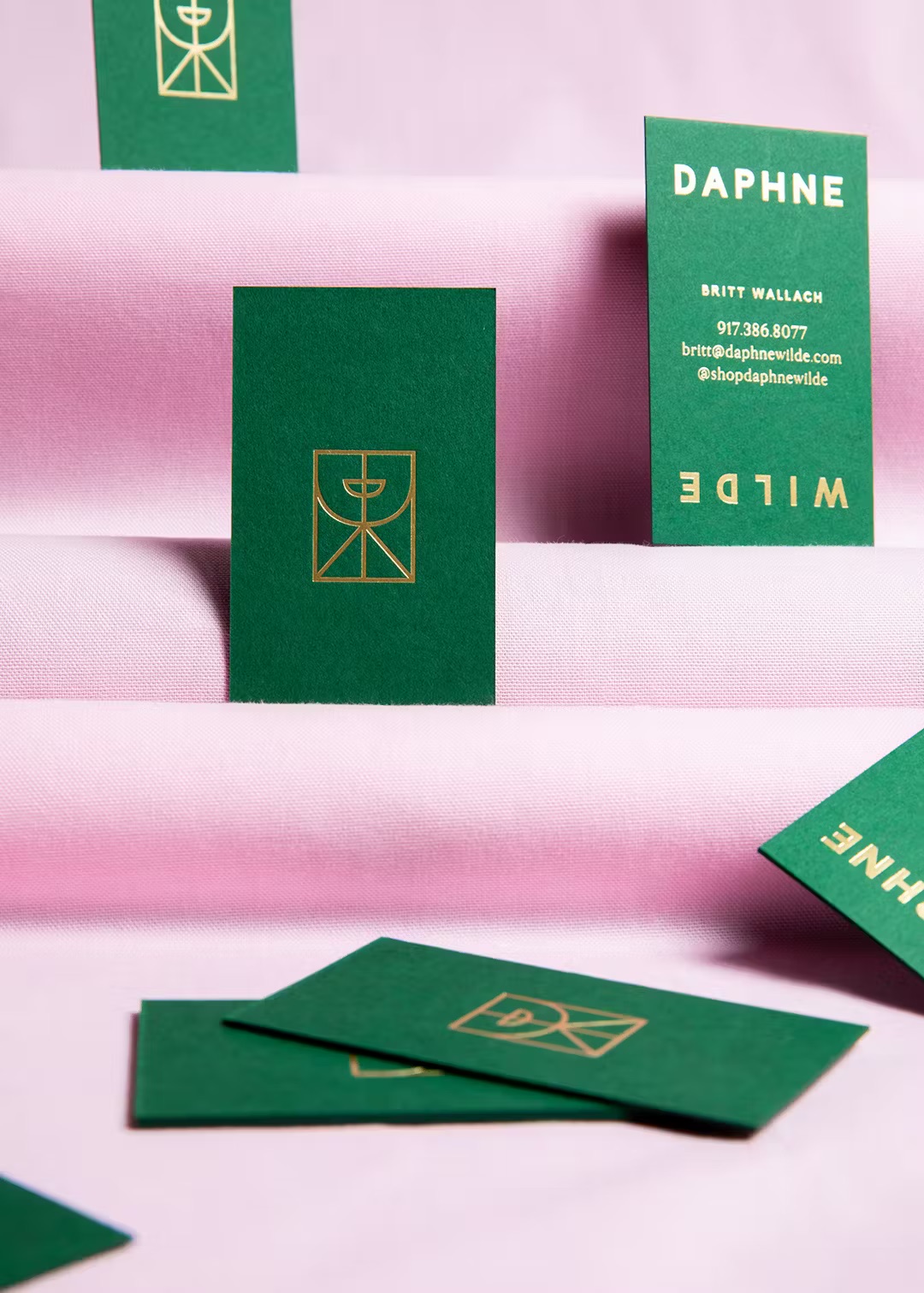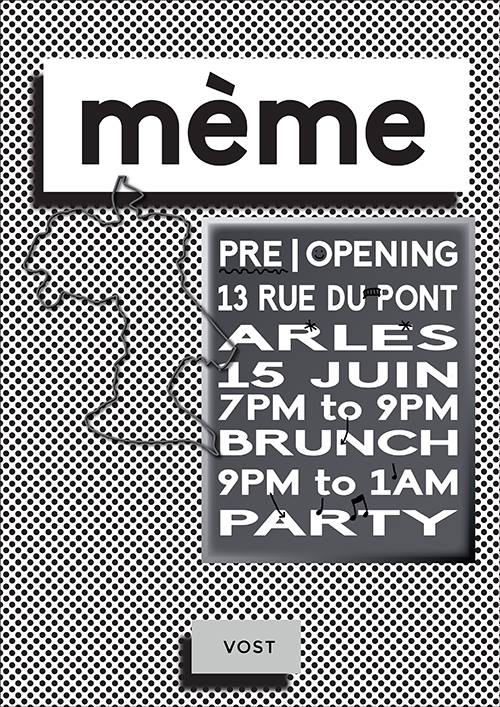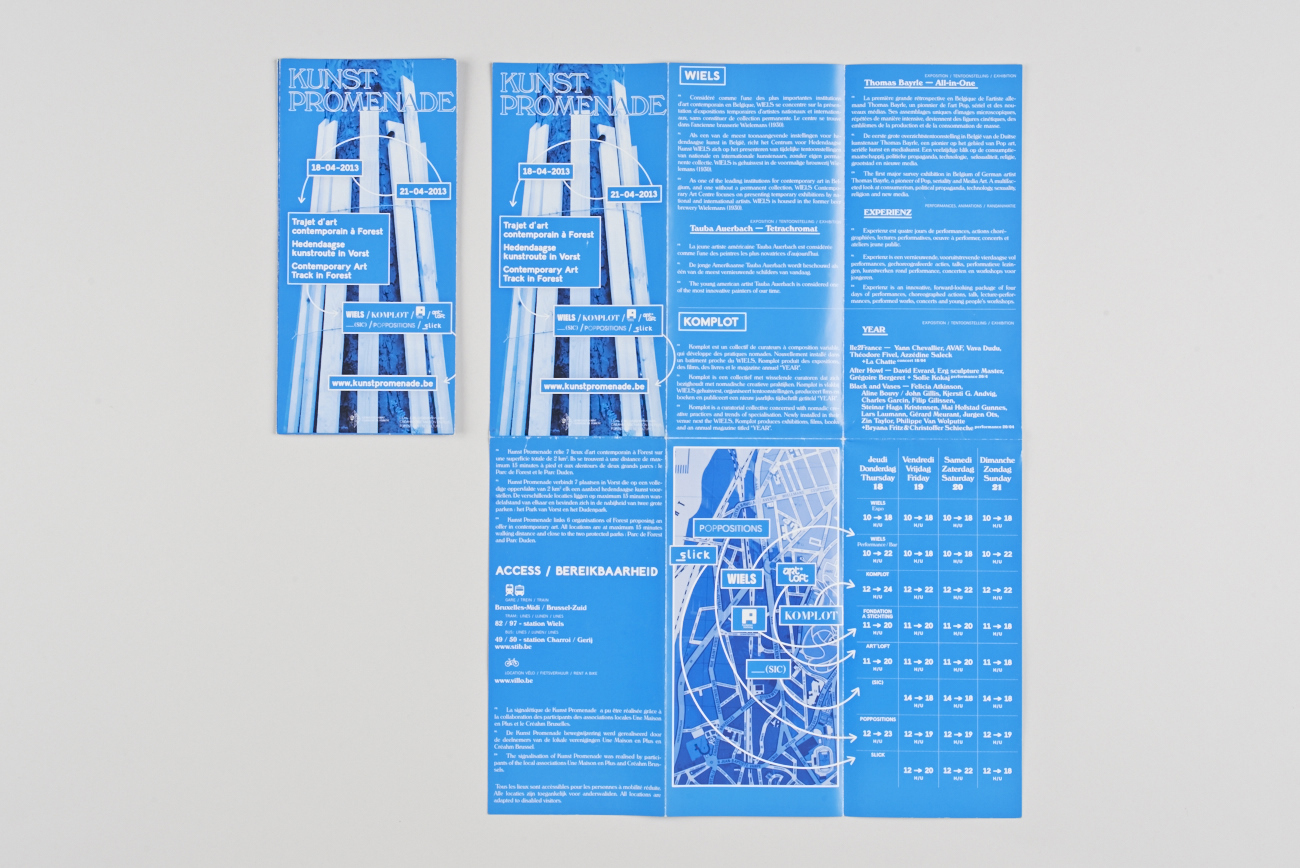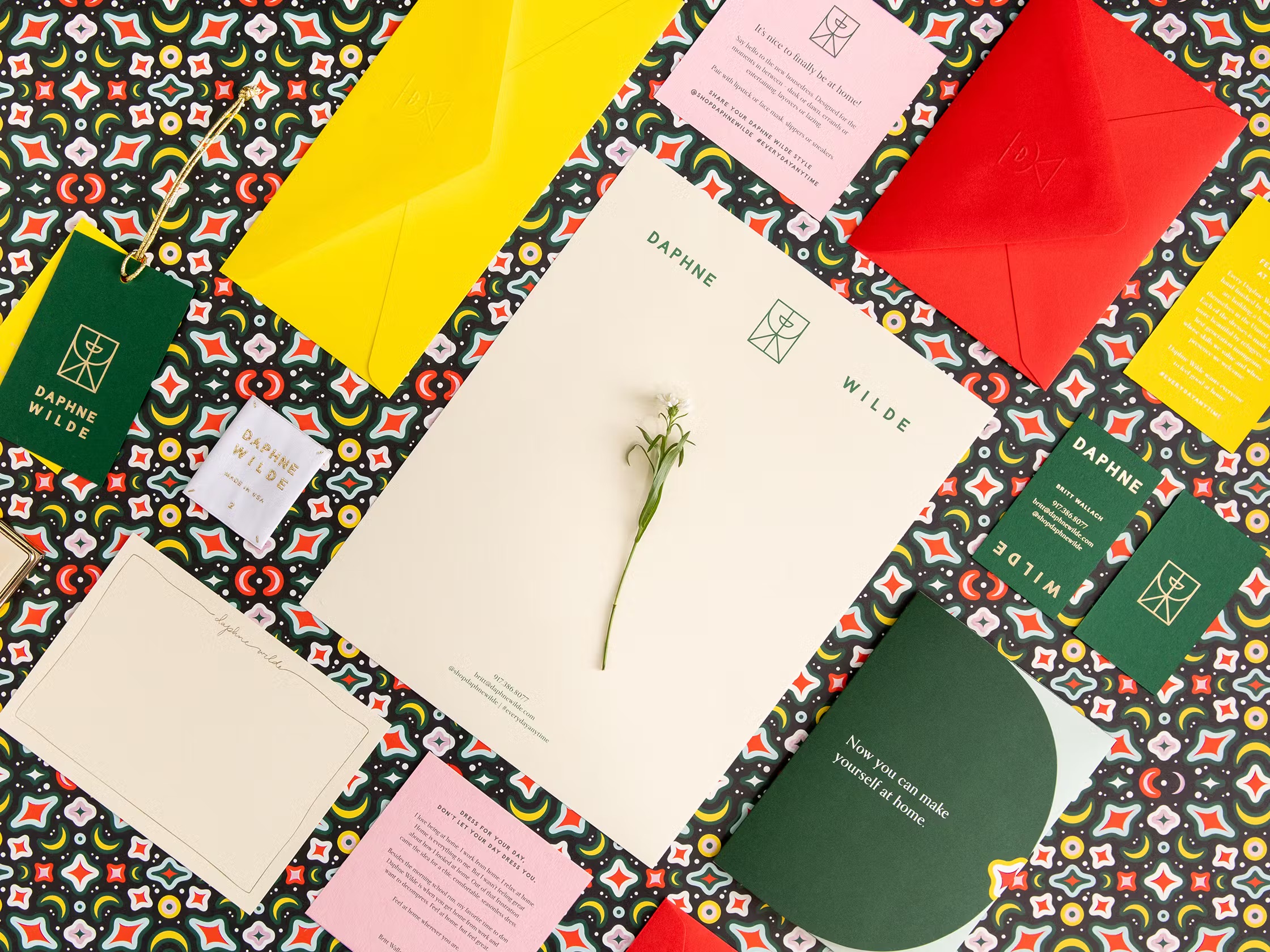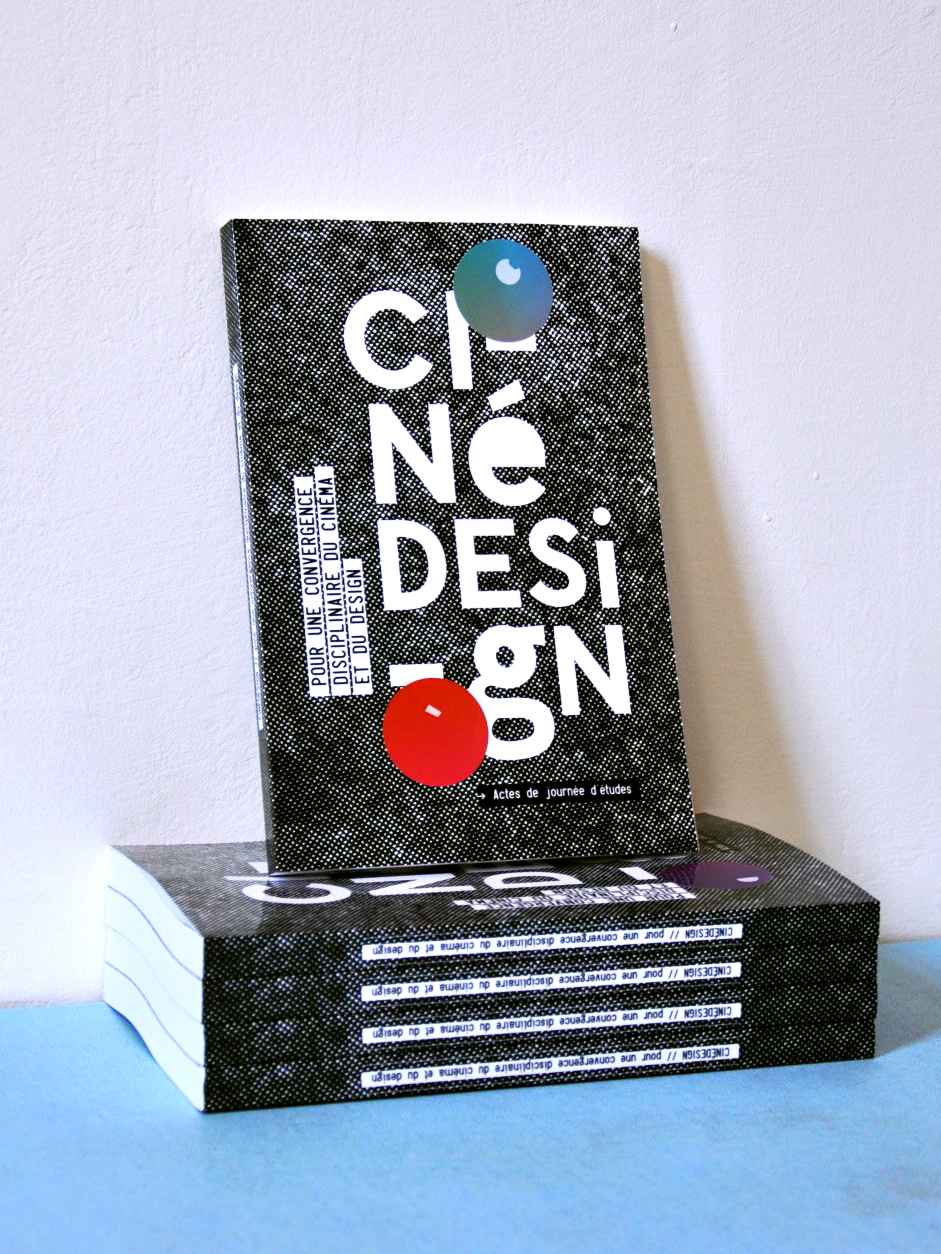
Lil Grotesk — 6 Styles
Stylistics Alternates
Ligatures
Lil Grotesk font is perfect for headlines, short texts, posters, logos, branding and more.
Designer
Bastien Sozeau
Released
2011 — V.04 update 2024
Styles
Available in 6 weights & variable